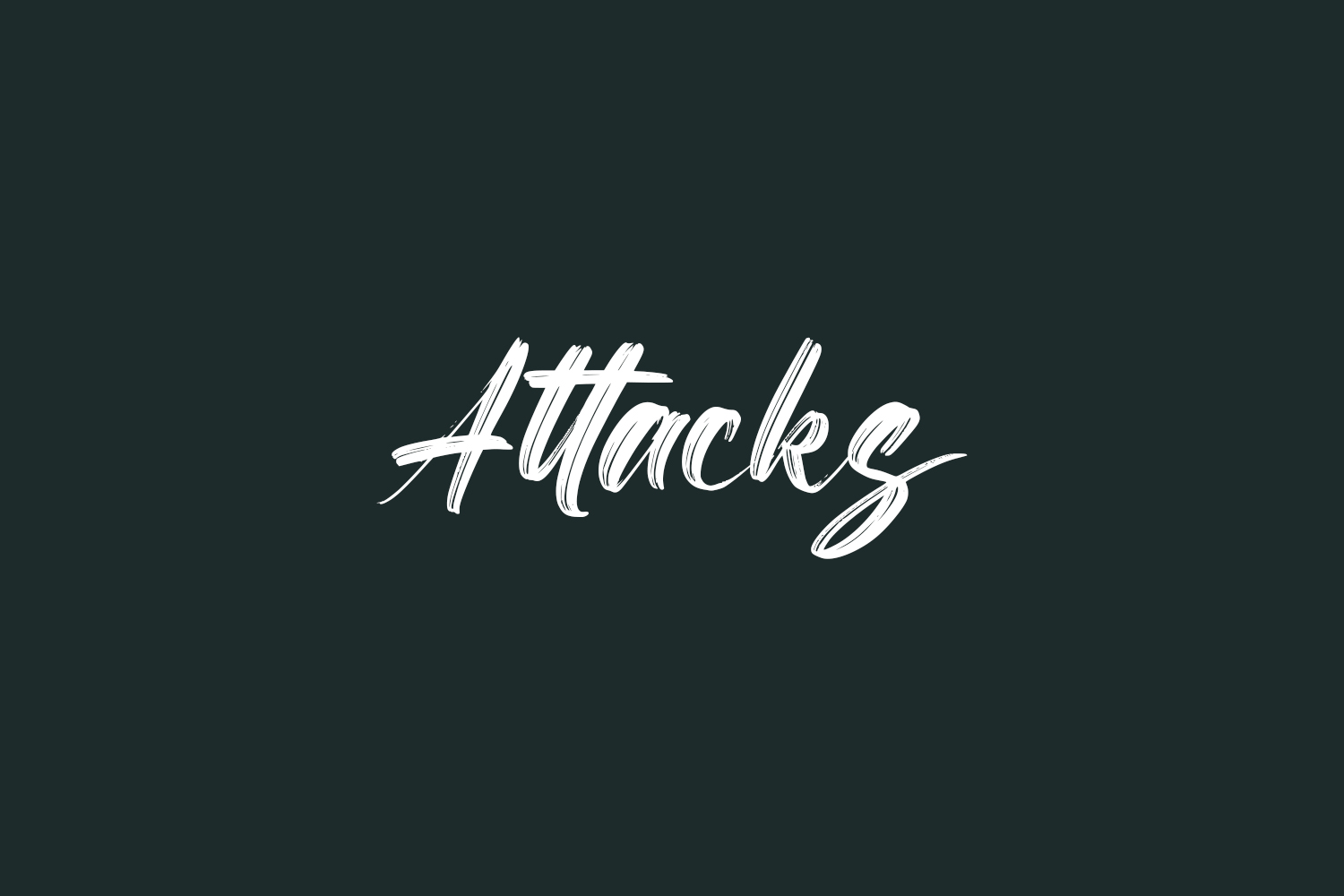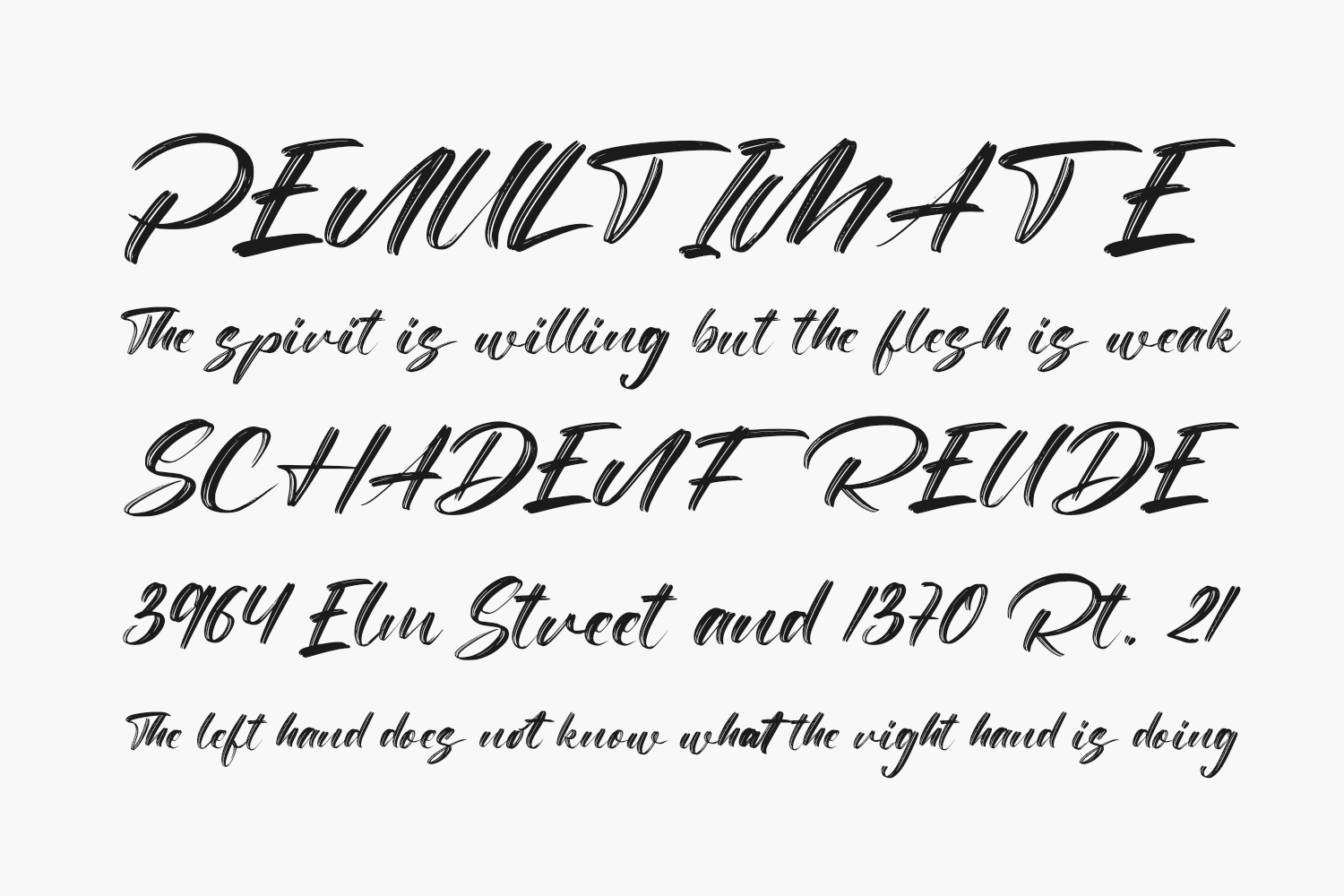
Attacks Free Font is a gorgeous and bold brushed handwritten font, crafted to give your headlines and logotype projects a stylish touch. This font reads as strong, confident, and dynamic and can add tons of nostalgic character to your designs. Attacks Free Font was designed by FatmaStudio and is free for personal use only. Please purchase the full version for commercial use.